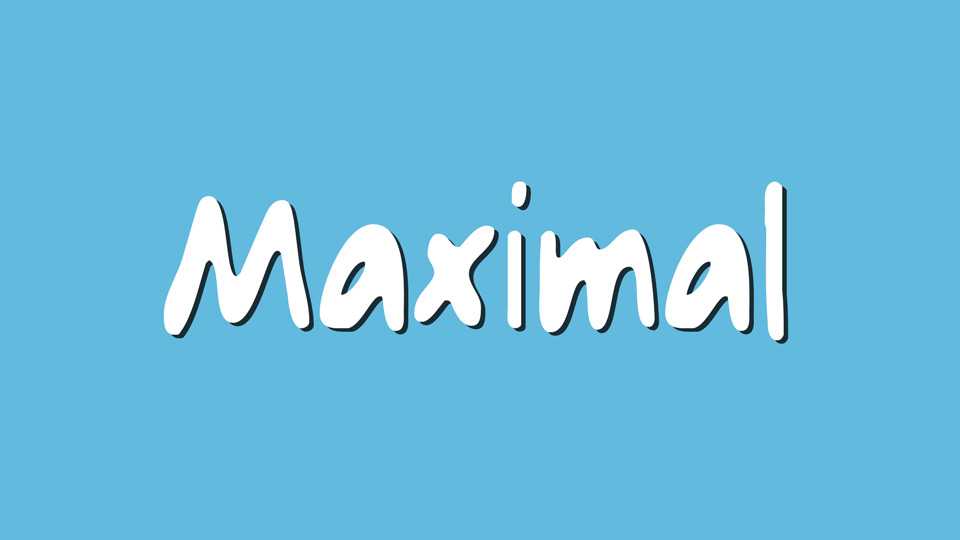
Download Maximal font, a smooth and quirky handwritten typeface. Add playful and sweet style to your designs with Maximal font and notice how they come to life.